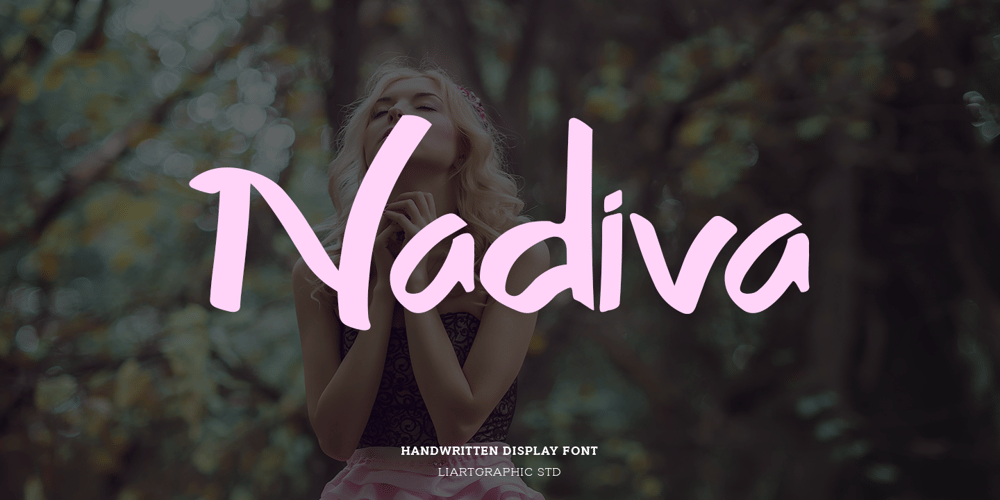
Nadiva Font Family was designed by Ali Sifak Muftari and published by Liartgraphic. Nadiva contains 1 styles and family package options. Nadiva is a nice and elegant script. It is suitable for making logos, headers, landing pages, packaging designs, and more. Nadiva includes multi-lingual support and alternate characters.